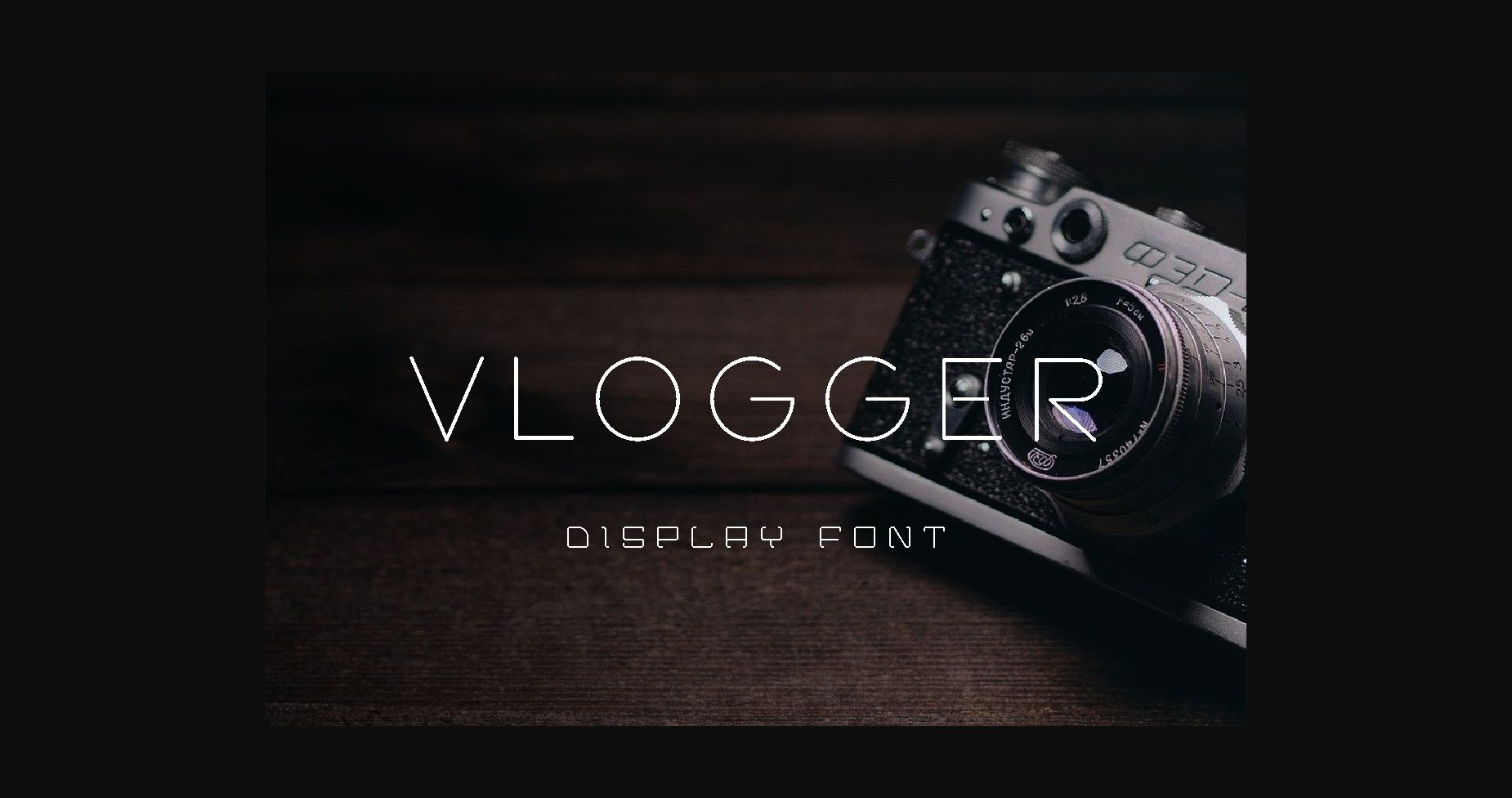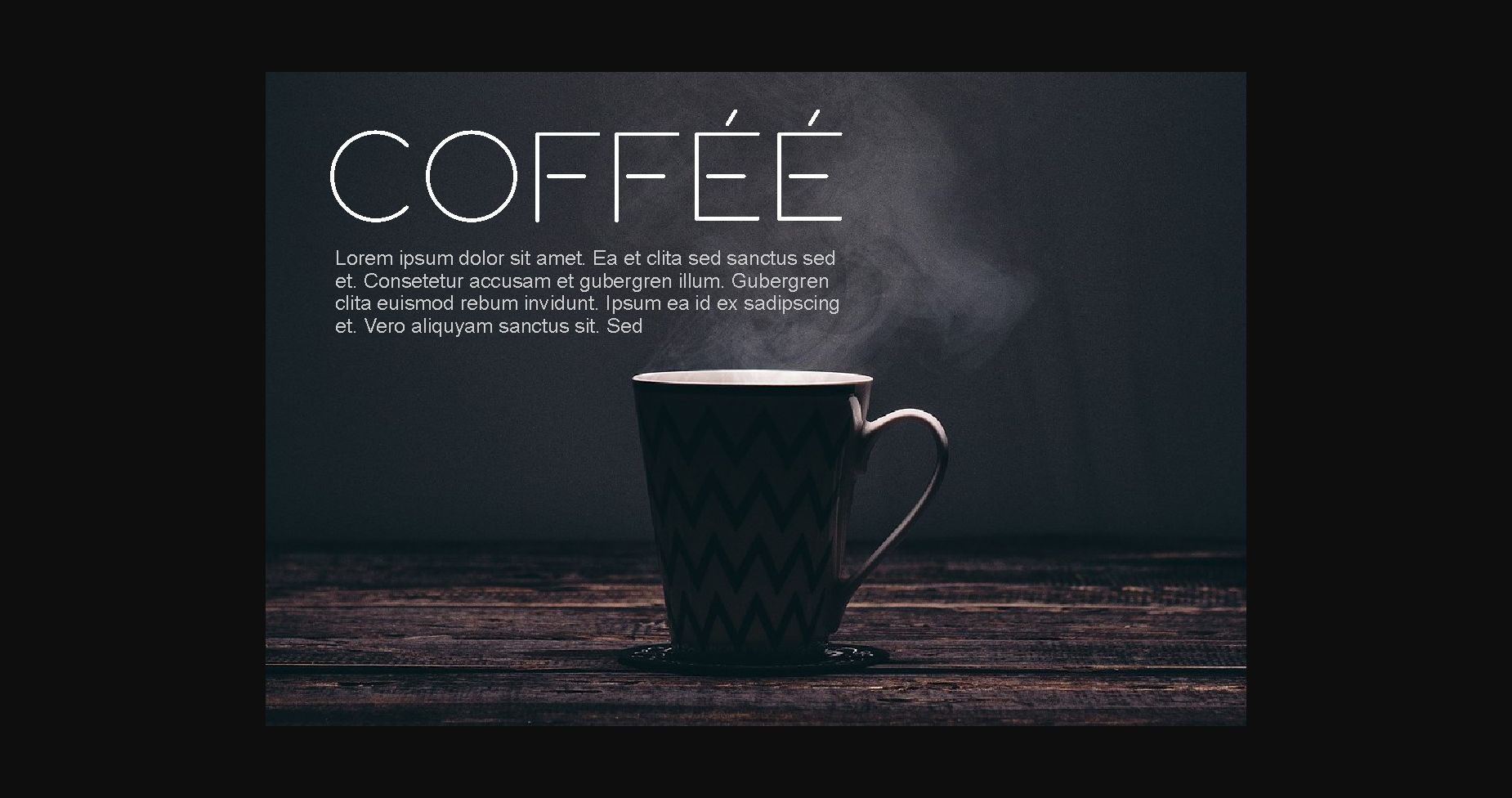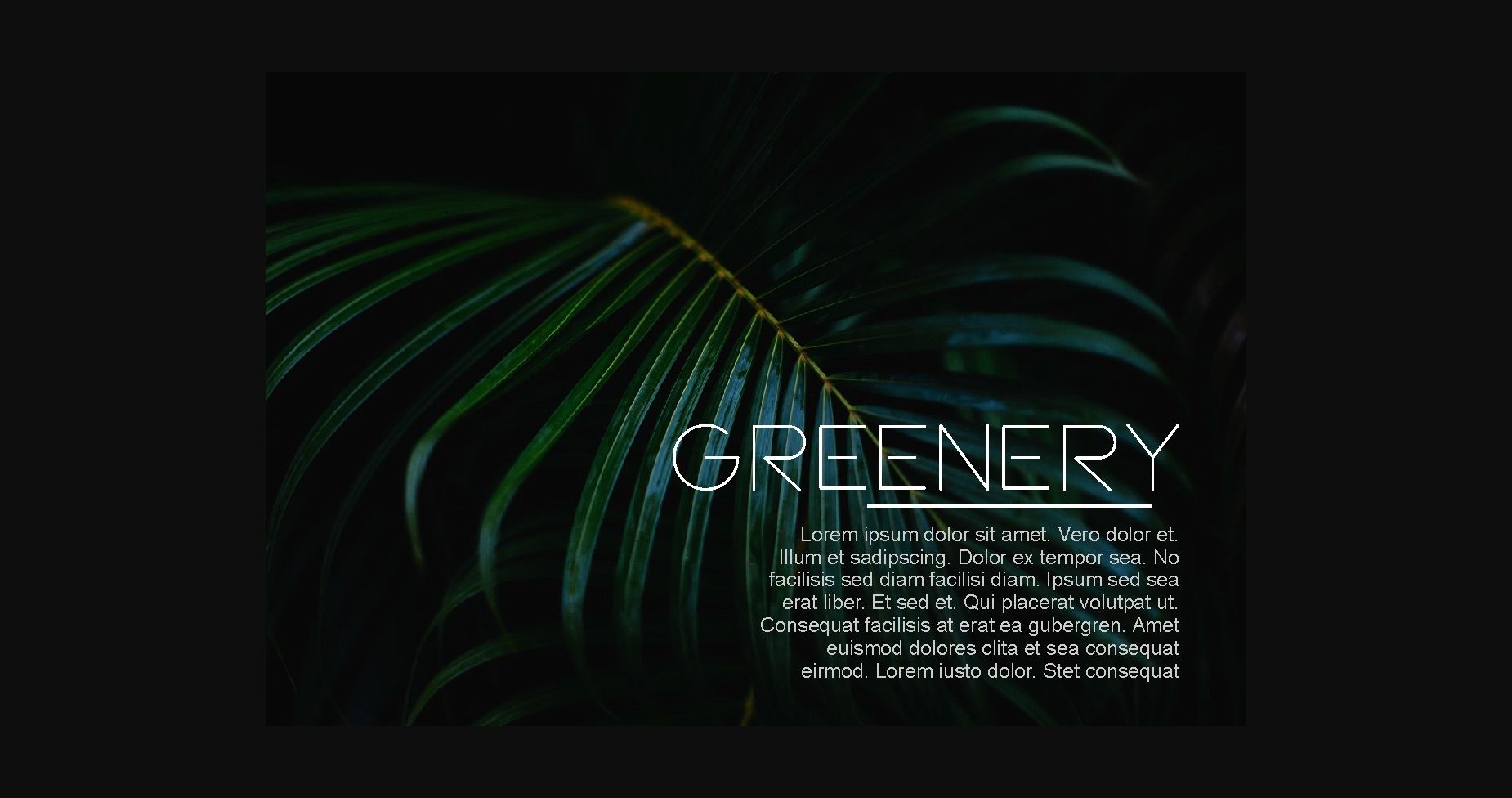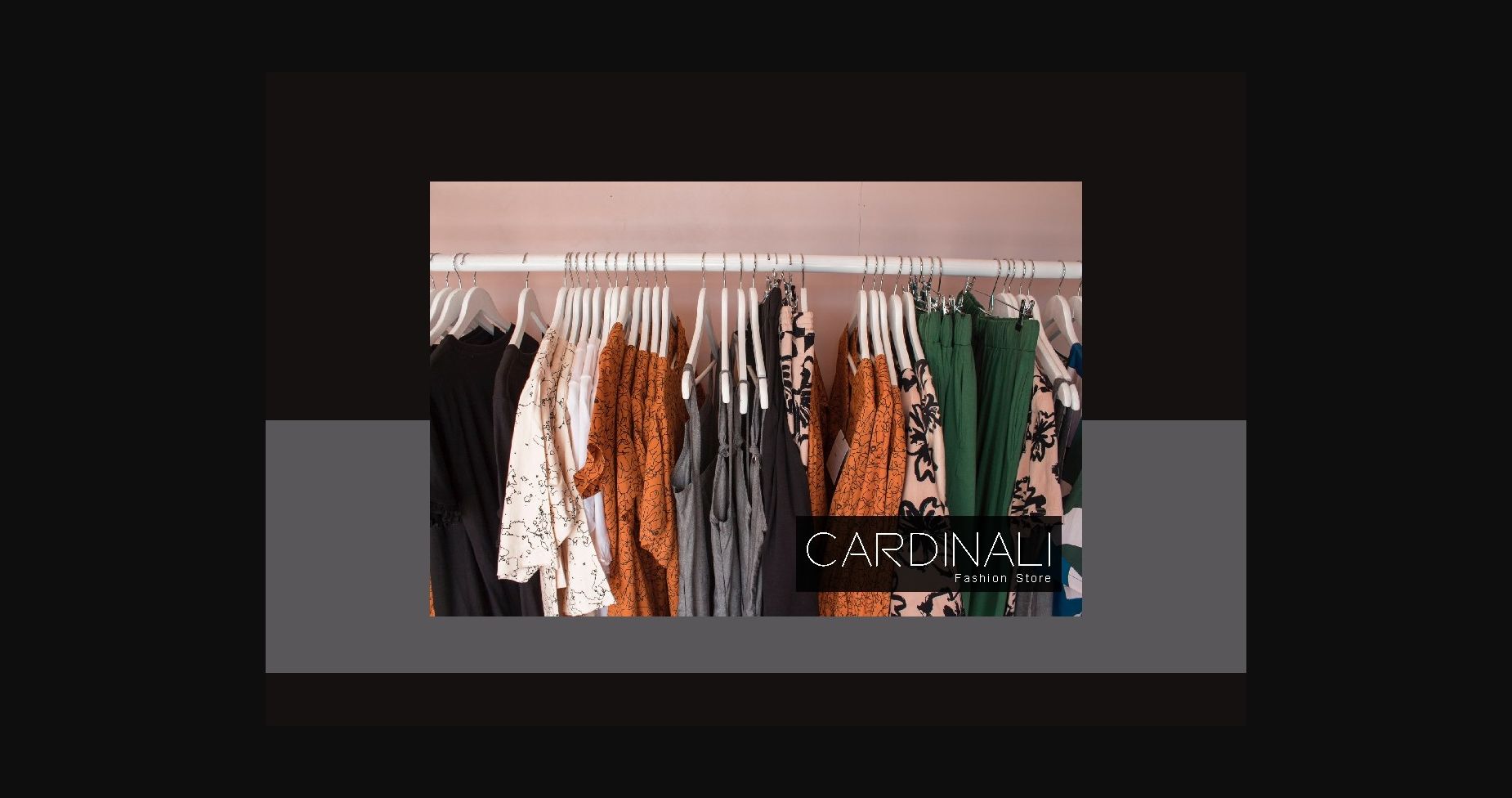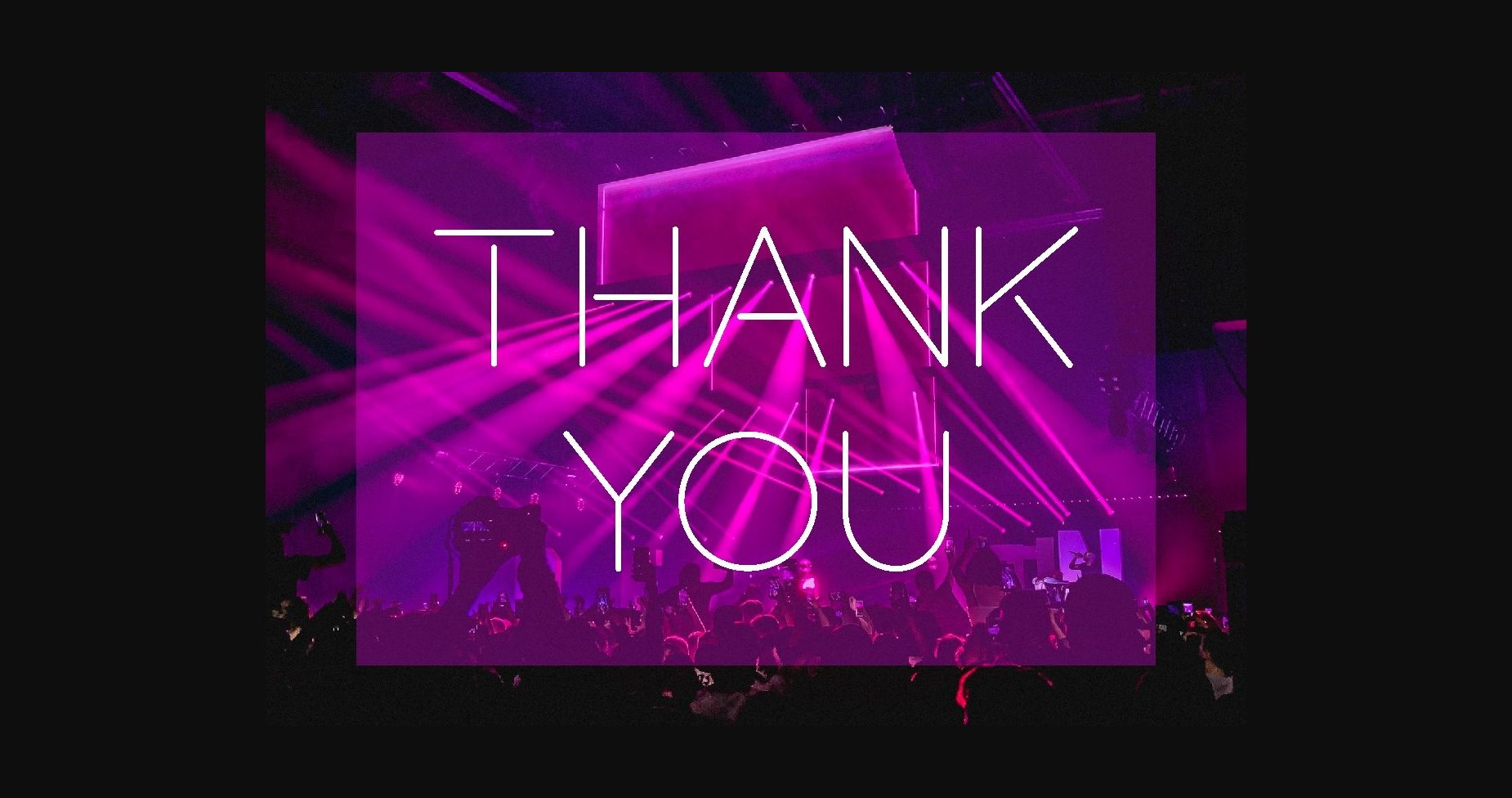
Vlogger is a minimalistic and neat sans serif font perfect for an incredibly large set of projects. Add it to any of your creative ideas, and notice how it makes them stand out!